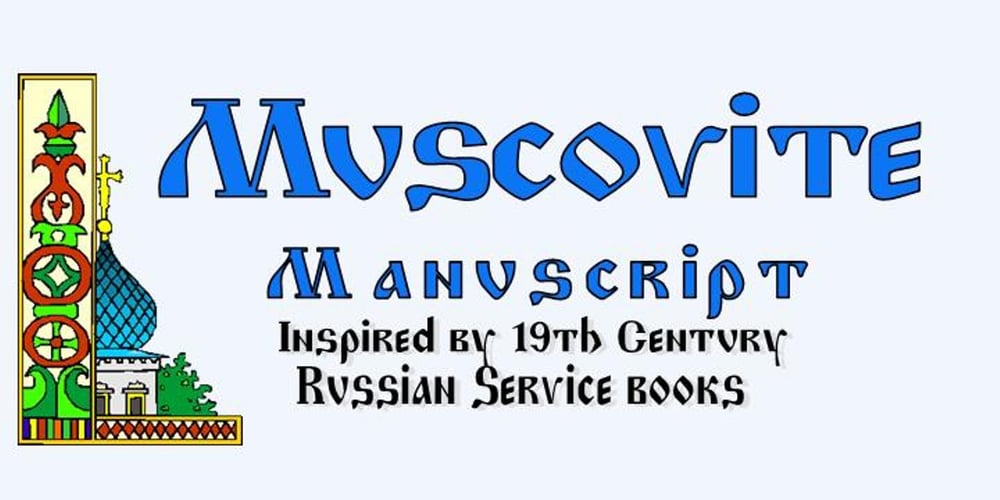
Muscovite Manuscript Font Family was designed by Brett T. Johnson and published by Simeon out West. Muscovite Manuscript contains 4 styles and family package options. Muscovite Manuscript is another result of many fruitless years of looking for a satisfactory font based on Old Russian Prayer books suitable for use with the Latin alphabet.